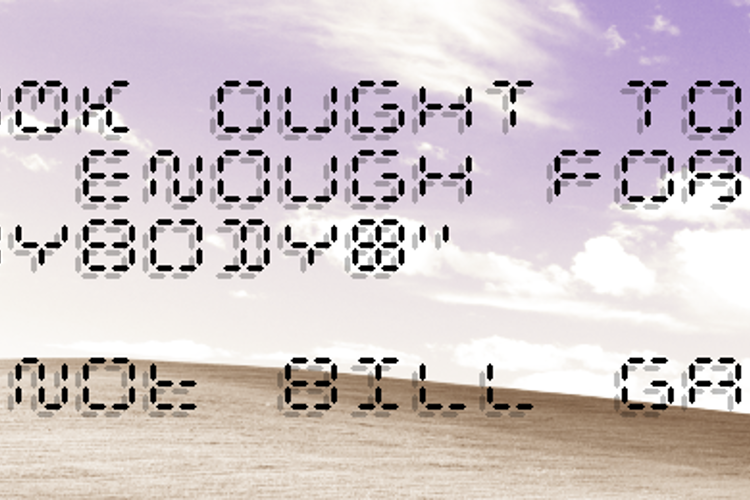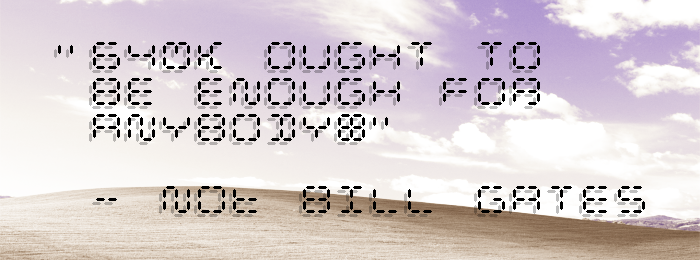
Calculatrix 12 Font
by Pixel Kitchen
An experimental 12-segment display. It's the calculator of yesterday's future!
This design belongs to a small family called Calculatrix. It's monospaced to ensure segments are always where they "should" be (as if the text were printed on one giant display).